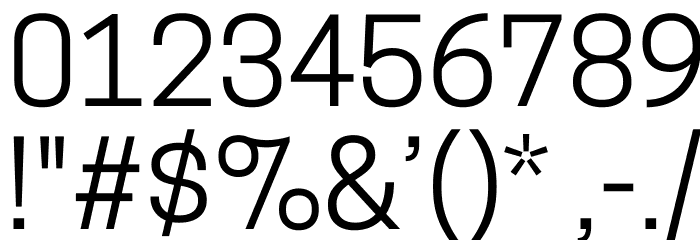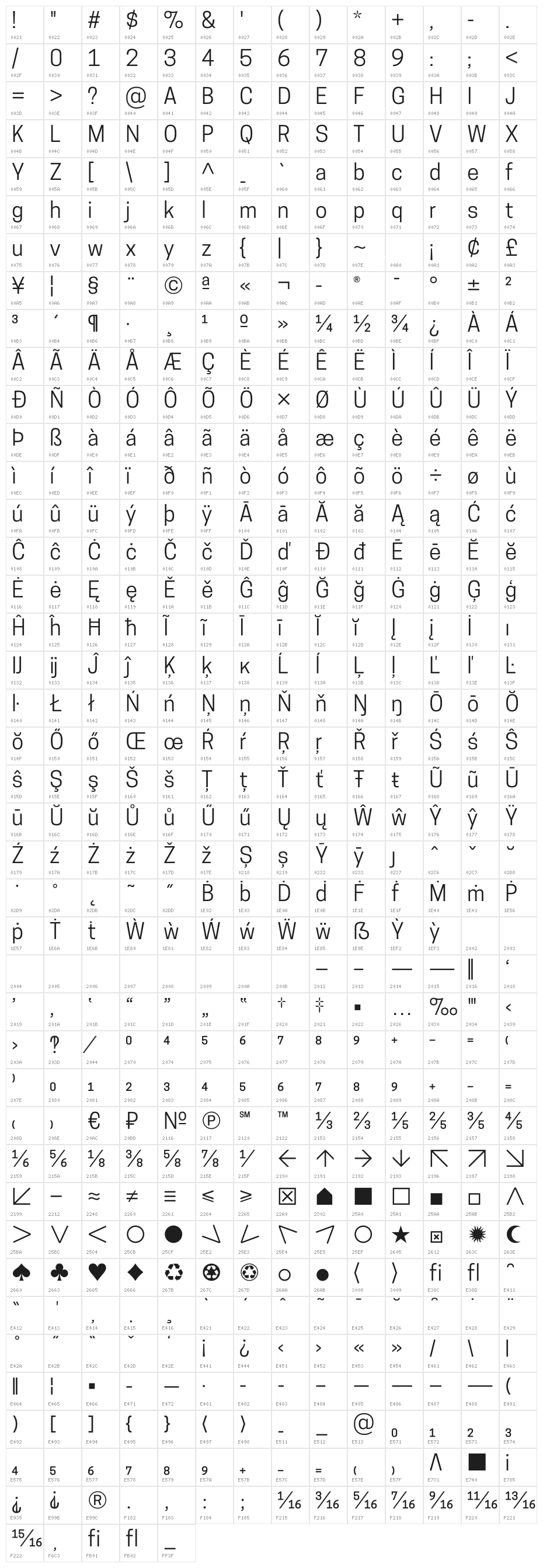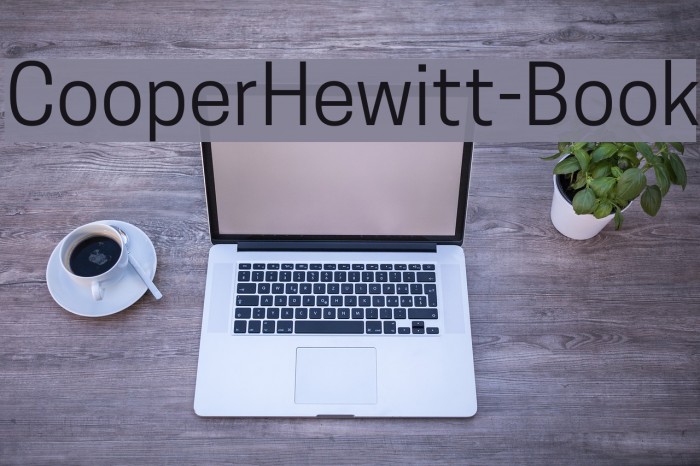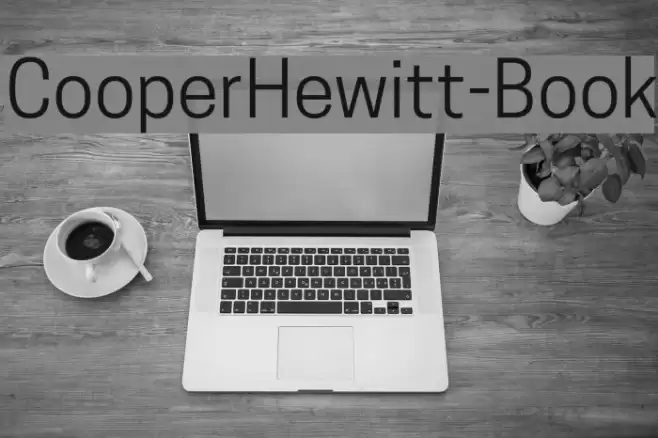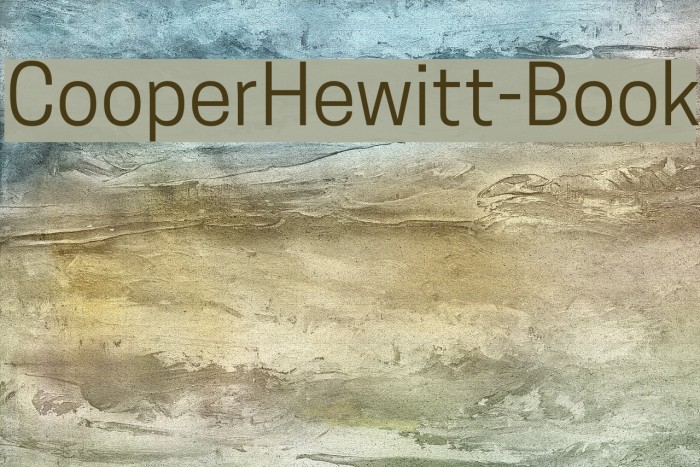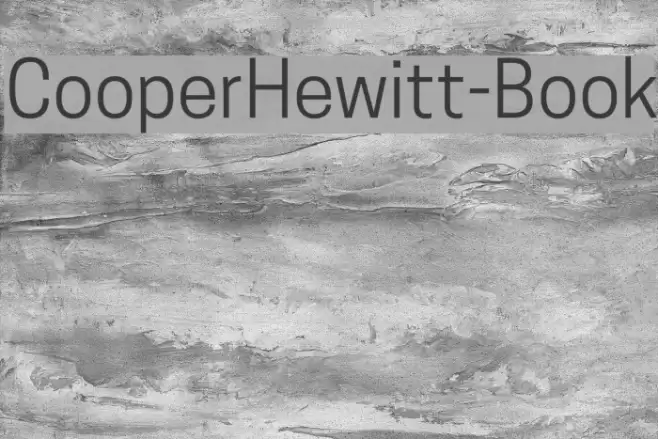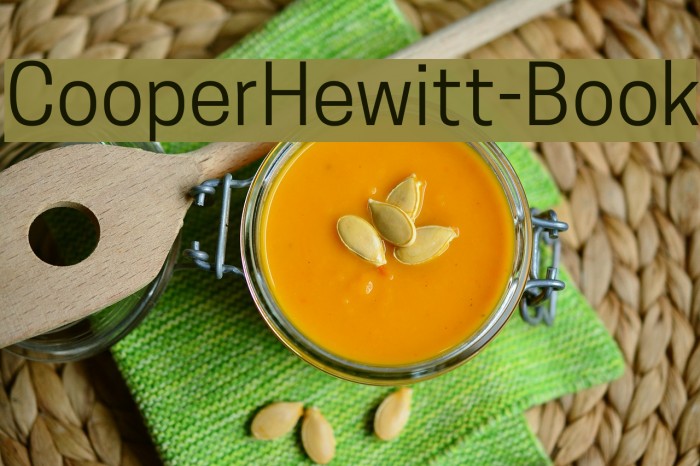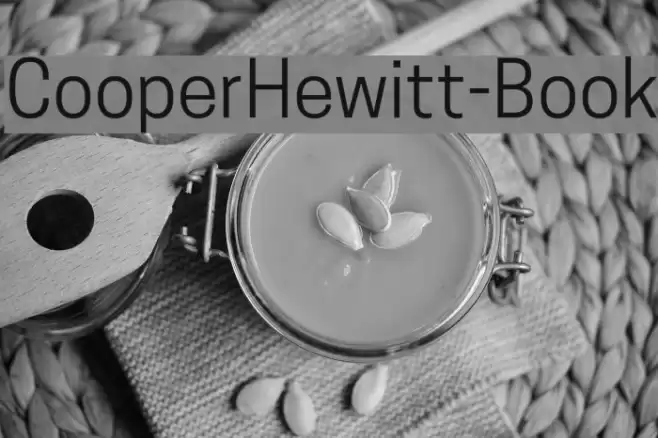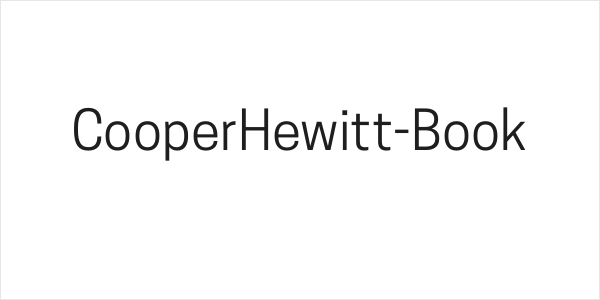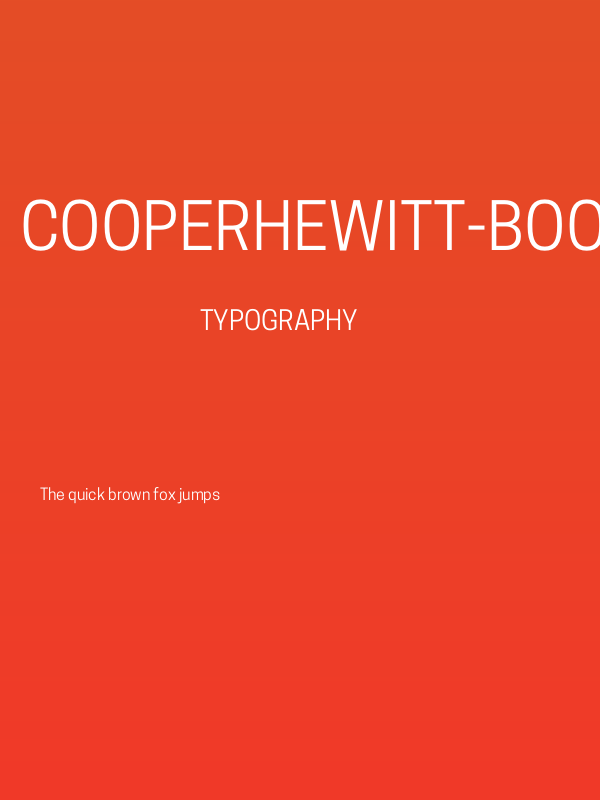
CooperHewitt-Book Font
CooperHewitt-Book Description
This font features a clean and modern sans-serif design, characterized by its geometric shapes and uniform stroke widths. The letters are well-balanced with a consistent height, providing a harmonious and professional appearance. The uppercase and lowercase letters are distinct yet complementary, offering versatility in various design contexts. The numerals are clear and legible, making them suitable for both digital and print media. Special characters are included, maintaining the font's cohesive style. Its simplicity and clarity make it ideal for contemporary design projects.
Use CaseHeadlines, Body text, Logos
Proposed ProjectsIdeal for branding, web design, editorial layouts, and signage due to its clarity and modern aesthetic.